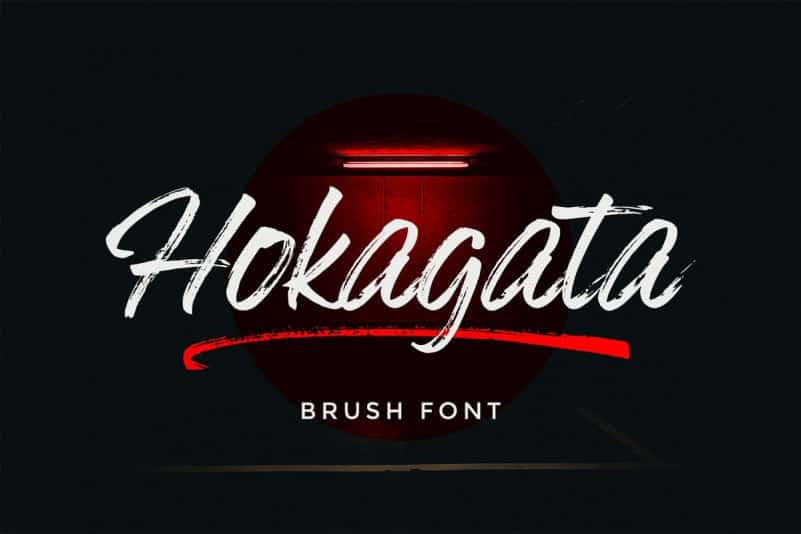
Hokagata Brush Script Font
Hokagata Font is made with a real brush pen by Fargun Studio. This typeface deliver the dry brush effect , to create a natural looks of beautiful handwriting brush calligraphy.
Hokagata Font can be used for various purposes such as logos, wedding invitations, t-shirts, letterheads, signage’s, labels, and much more!